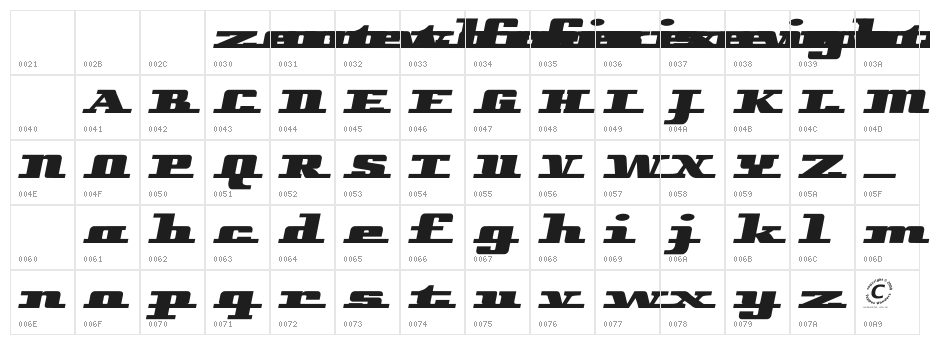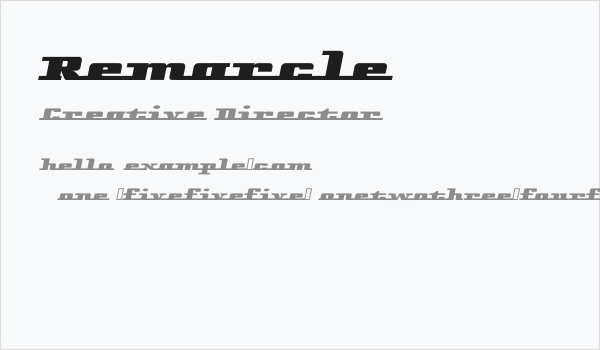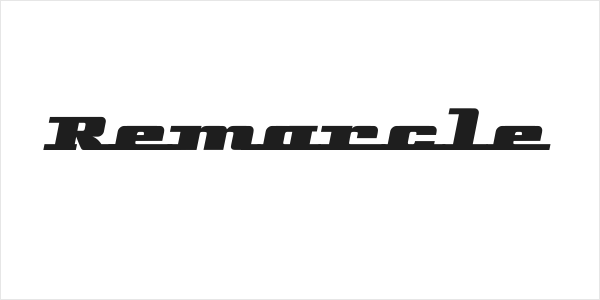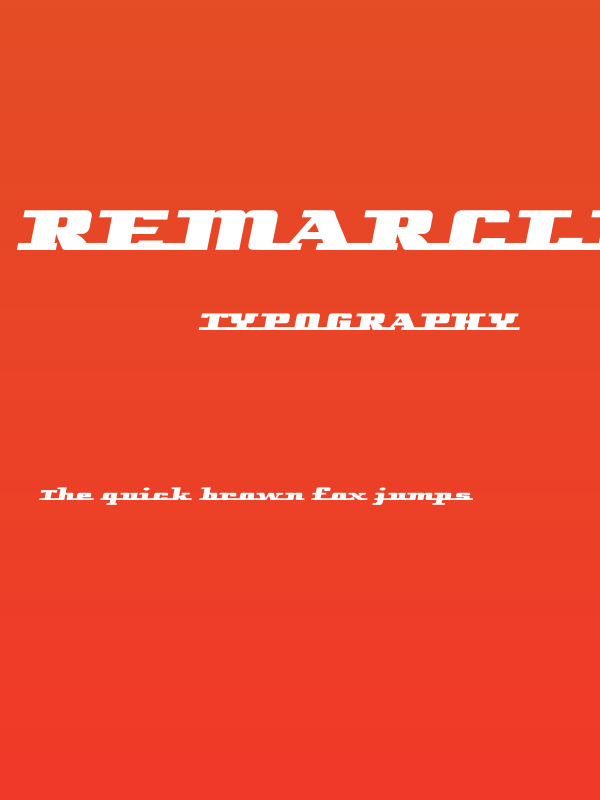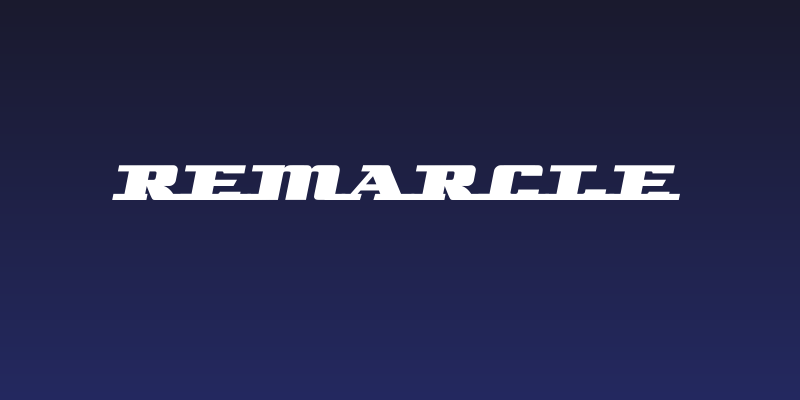
Remarcle Font
Remarcle Description
This font features a bold, dynamic style with a strong presence. The uppercase letters have a distinct angular design, giving them a futuristic and sporty appearance. The lowercase letters maintain a similar angularity but with a slightly more streamlined form. The numbers are consistent with the overall style, offering a cohesive look across all characters. Special characters are designed with a unique flair, adding to the font's distinctive personality. The font's boldness and angularity make it ideal for projects that require a modern and energetic aesthetic.
| Proposed Projects | Ideal for sports branding, modern logos, dynamic posters, and futuristic designs. |